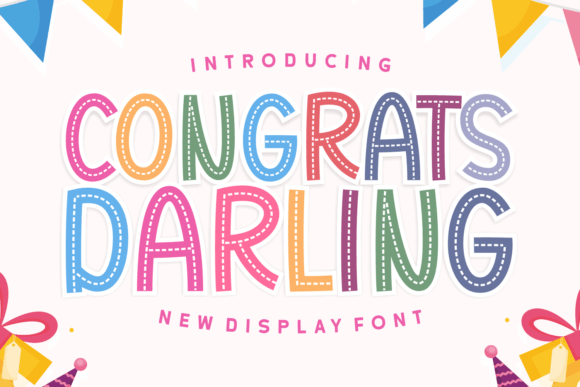
Congrats Darling: A Playful Display Typeface for Makers
I remember the exact moment I needed a font that felt like a warm hug for my new candle line. I was staring at a blank Canva canvas, trying to design a label for a lavender-scented soy wax jar, and every standard serif or bold sans-serif felt too stiff for the cozy, handmade vibe I wanted. That is when I discovered Congrats Darling, a childish, easy-to-read display font that conveys impeccable friendliness. It instantly transformed my mockup from generic to genuine, proving that the right typeface can turn a simple product listing into a brand experience.
As a creator who spends hours cutting vinyl for stickers and arranging printable wall art, I know how crucial it is to find fonts that balance charm with commercial viability. This review explores how Congrats Darling performs in real-world production scenarios, from digital downloads to physical merchandise. Whether you are designing greeting cards, crafting tote bags, or preparing presentation slides, this Display font offers a unique personality that resonates deeply with customers looking for something personal and approachable.
Congrats Darling for Candle Labels and Boutique Packaging Design
Congrats Darling shines brightest when applied to small-scale packaging where immediate emotional connection matters most. I tested this Fonts family on a series of kraft paper tags intended for a boutique soap shop, and the results were surprisingly legible even at smaller sizes. The playful curves of the letters create a sense of whimsy without sacrificing readability, making it perfect for short phrases like "Handmade with Love" or "Freshly Poured."
When designing product labels, the visual weight of the text needs to stand out against complex backgrounds. Because Congrats Darling has a distinct, rounded structure, it pairs beautifully with clean, minimalist imagery. I found that using the font in white against a dark navy background created a striking contrast that caught the eye on Etsy listings. However, for very tiny cut files used on micro-stickers, I recommend testing the kerning closely to ensure the letterforms do not merge during the cutting process. For larger packaging elements like gift boxes or shipping envelopes, this typeface adds a touch of celebratory flair that elevates the unboxing experience.
Congrats Darling for Wedding Invitations and Stationery Projects
While many designers reach for elegant scripts for weddings, Congrats Darling offers a modern, youthful alternative that feels less formal and more inviting. I recently used this Display font to draft a set of DIY wedding welcome boards and table numbers, and the cheerful tone fit perfectly with a rustic outdoor ceremony theme. Its childish yet polished aesthetic bridges the gap between traditional stationery and contemporary graphic design.
In the realm of invitations, readability is paramount. This font excels at displaying names and dates clearly while maintaining a decorative edge. I paired Congrats Darling with a simple, thin sans-serif font for the body text of the invitation details, which provided excellent balance. The contrast between the playful header and the structured supporting text kept the design professional enough for a formal event while retaining a fun, personalized feel. It is particularly effective for milestone celebrations like baby showers, bridal showers, or birthday parties where a lighthearted mood is desired.
Congrats Darling for Tote Bags, Signs, and Merchandise Production
Moving beyond paper goods, I put Congrats Darling to the test on physical merchandise, specifically screen-printed tote bags and wooden signs. The robust nature of the letterforms holds up well under heat transfer vinyl (HTV) application, making it a favorite for Cricut and Silhouette users. The thick strokes and rounded edges prevent peeling issues often seen with overly delicate script fonts on fabric surfaces.
When designing for large-format items like yard signs or storefront banners, the font's high visibility is a major asset. It conveys a message of warmth and community engagement, ideal for local markets or pop-up shops. I noticed that the font's personality amplified the perceived value of the merchandise; a simple t-shirt featuring this typeface looked like a curated designer piece rather than a generic print. For seasonal products, such as holiday ornaments or Christmas stockings, the font's inherent joy makes it a versatile choice for various holidays without feeling dated.
If you are creating designs for mugs or phone cases, ensure that the text remains centered and balanced, as the font's width can vary slightly depending on the character combinations. For long paragraphs of text, however, this Display font is not recommended. It is designed for impact and brevity, so it works best for titles, slogans, and key messages rather than dense informational blocks.